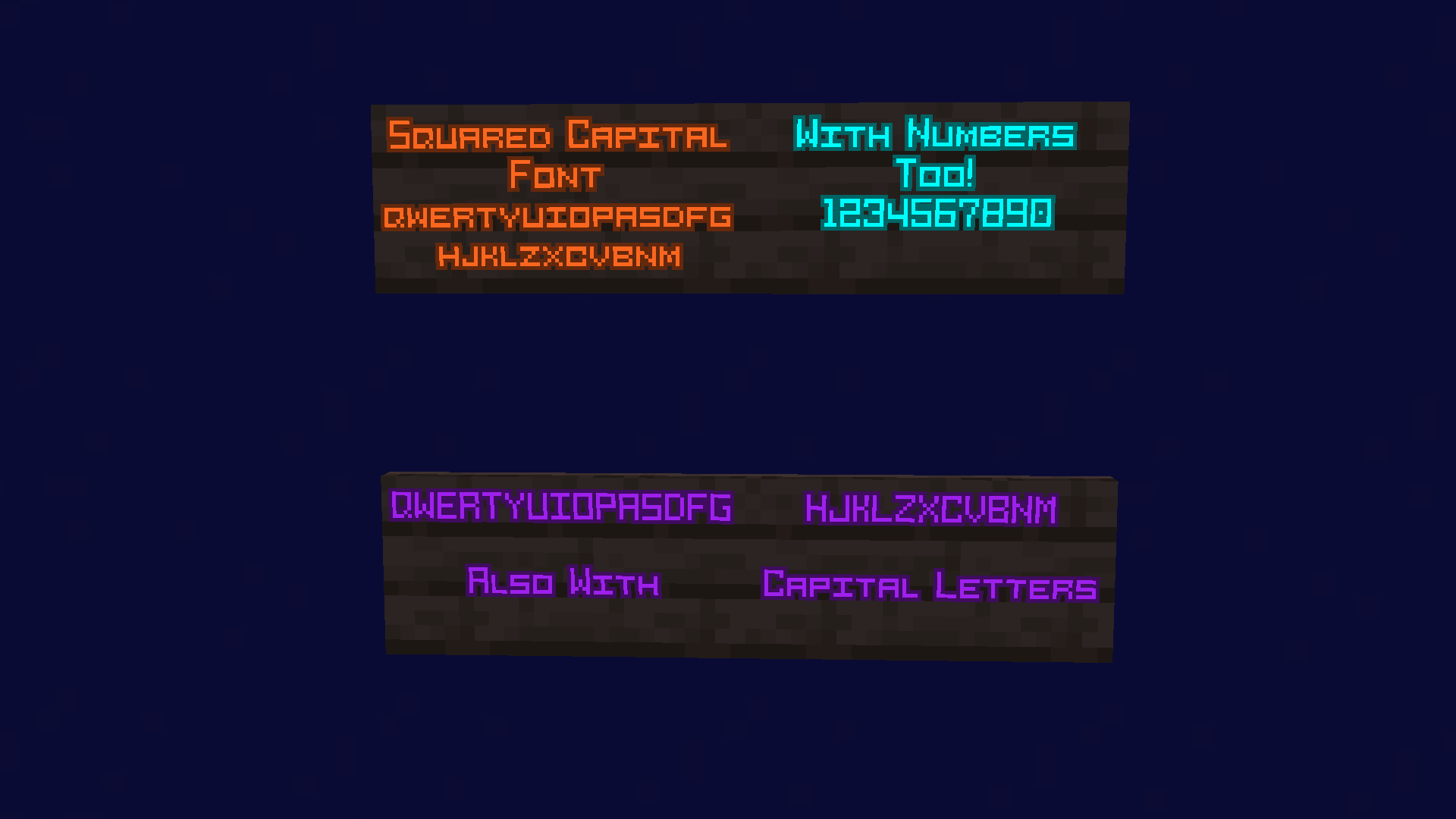
This replaces all lowercase letters with smaller versions of their capital letters. All letters, numbers, and some symbols have been squared. it should work on all versions.